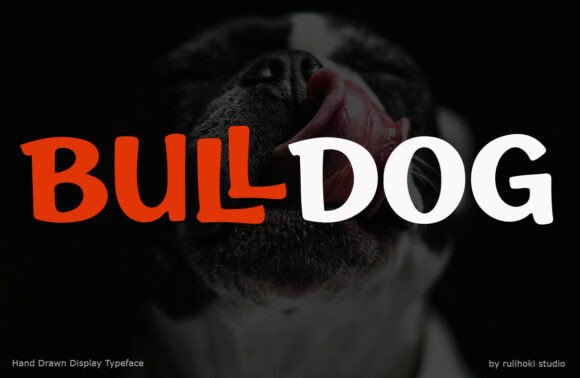
The Bulldog Font: A Charming Companion for Creative Projects
I’ll never forget the design project that led me to discover the Bulldog font. I was working on a branding campaign for a trendy café, and I needed a font that would capture the warmth and authenticity of their chalkboard signs. After hours of searching, I stumbled upon Bulldog, and it was love at first sight! ✨ In this article, I’ll share my experience with this amazing font, its features, and how to make the most of it in your creative projects.
A Personal Review: What I Love About Bulldog Font
Bulldog font has quickly become a staple in my design toolkit, and here’s why:
• ✅ Unique Character: Bulldog’s organically interconnected block letters and delightful ligatures make it stand out from other marker fonts.
• ✅ Variety of Letterforms: With a rich variety of letterforms, you can avoid monotony and add visual interest to your designs.
• ✅ PUA-Encoded: The font is PUA-encoded, making it easy to access all glyphs, swashes, and alternate characters.
• ✅ Warmth and Authenticity: Bulldog exudes an inviting warmth and genuine authenticity, perfect for designs that require a touch of personality.
While Bulldog font is amazing, there are a few things to keep in mind:
• ⚠️ Learning Curve: With so many glyphs and alternate characters, it may take some time to get familiar with the font’s features.
• ⚠️ Overuse of Ligatures: While ligatures can add visual interest, overusing them can make your design look cluttered.
• 🤔 Pairing with Other Fonts: Bulldog font is quite bold, so pairing it with other fonts may require some experimentation to find the perfect combination.
The Designer Inspiration Behind Bulldog Font
Bulldog font was inspired by the whimsical charm of chalkboard signs adorning cafés, bars, and bustling street markets. The designer aimed to create a font that would capture the warmth and authenticity of these signs, while also providing a unique and character-dense typographic experience.
Q: What is PUA encoding, and how does it benefit Bulldog font?
A: PUA (Private Use Area) encoding allows designers to access a wide range of glyphs, swashes, and alternate characters, making it easier to create unique and visually interesting designs.
Q: Is Bulldog font suitable for body text?
A: While Bulldog font is perfect for headlines and titles, it may not be the best choice for body text due to its bold and decorative nature.